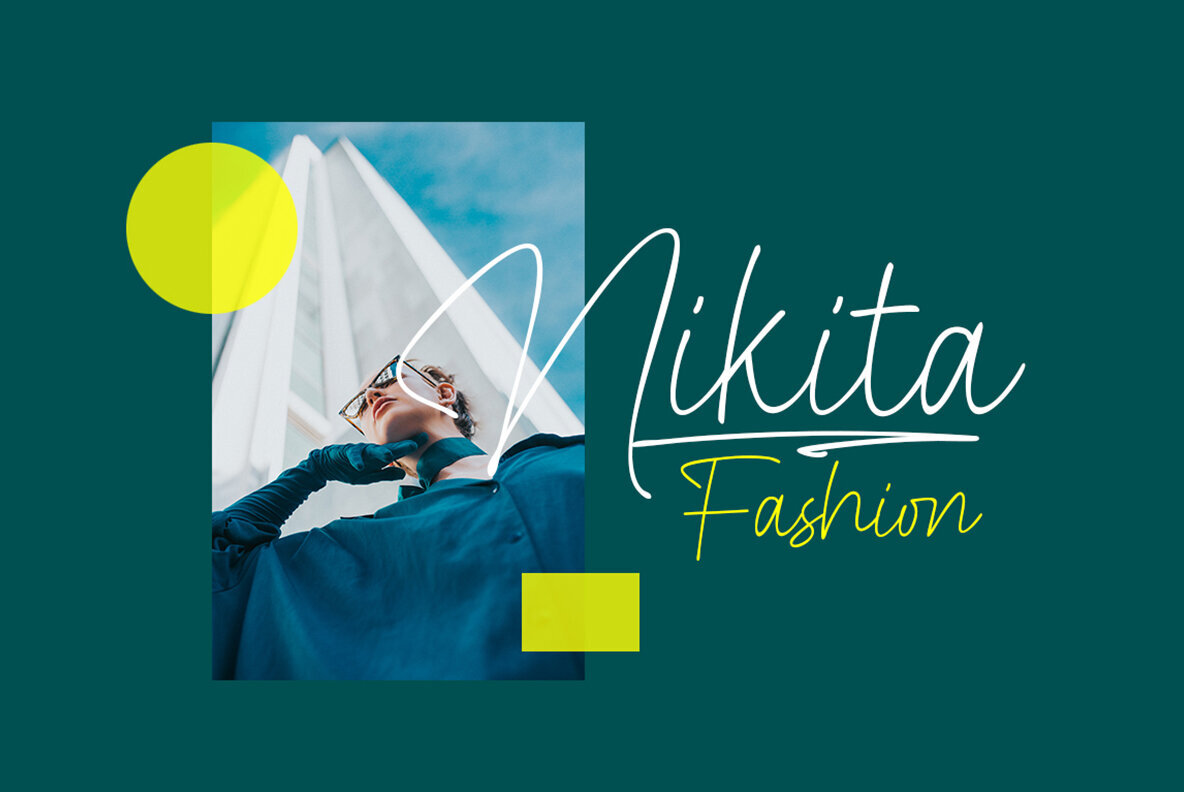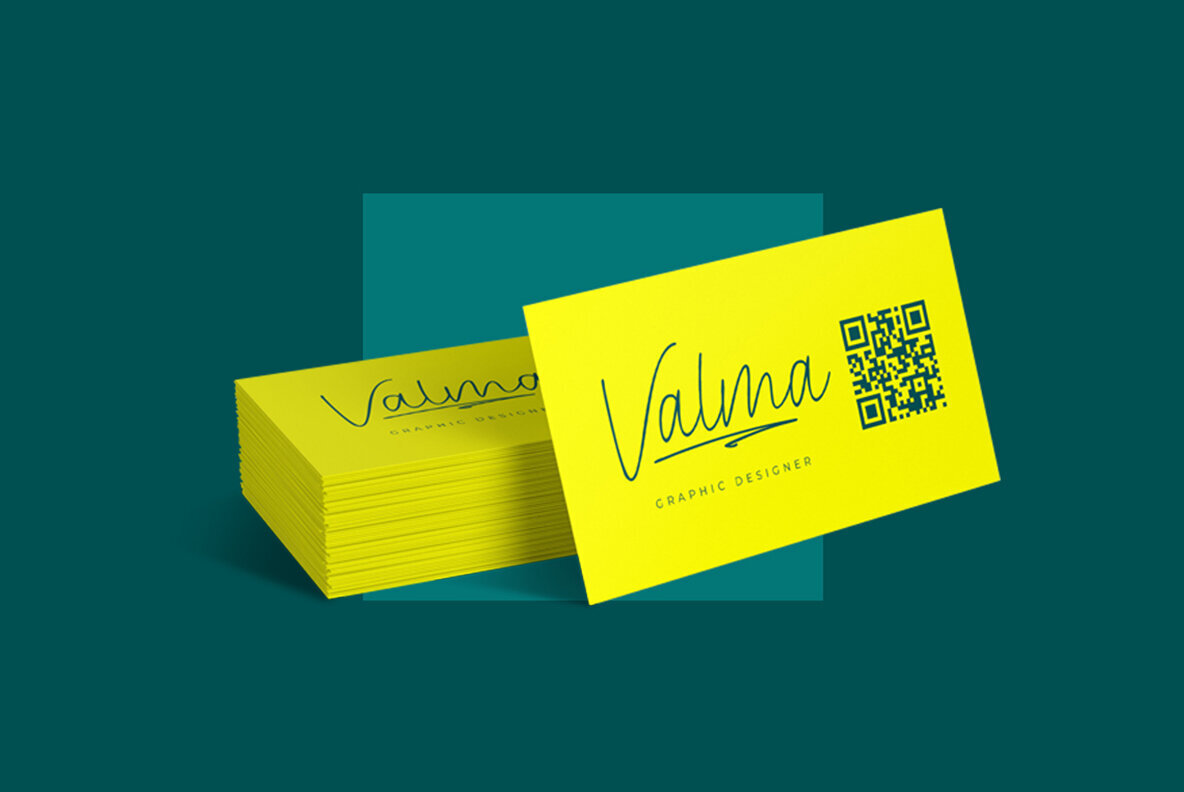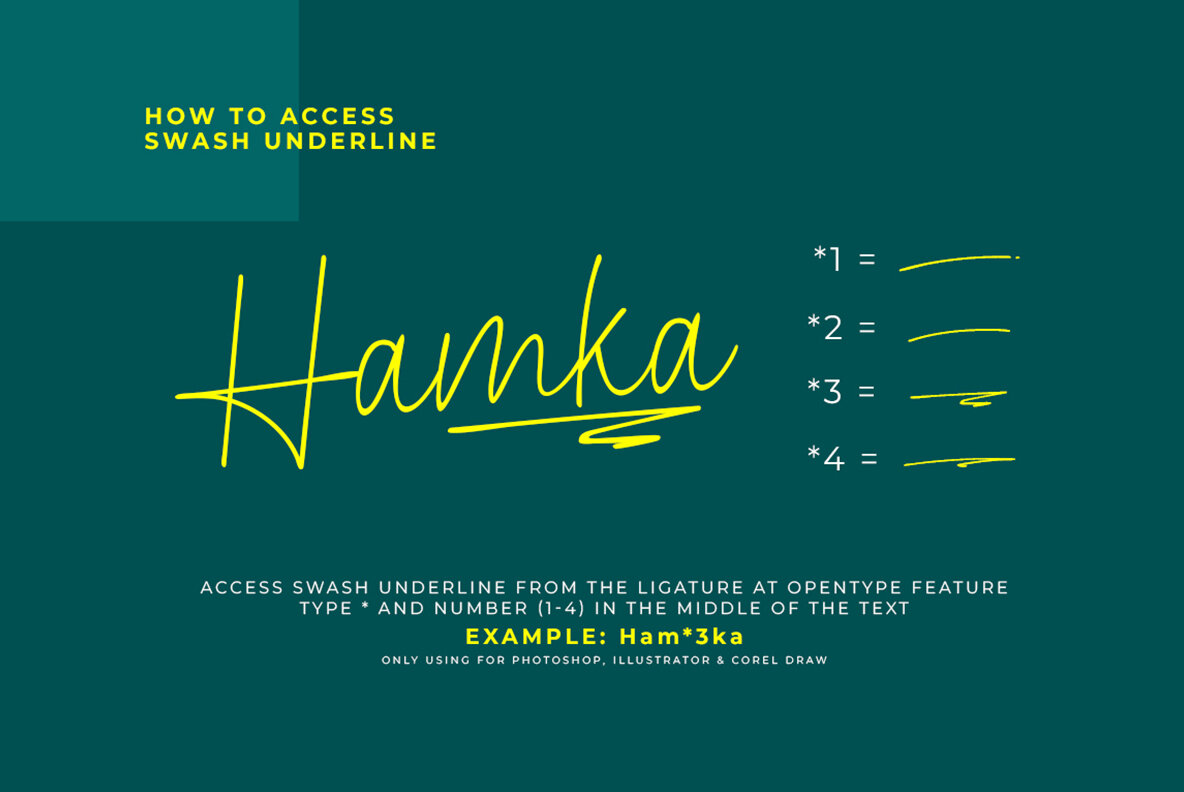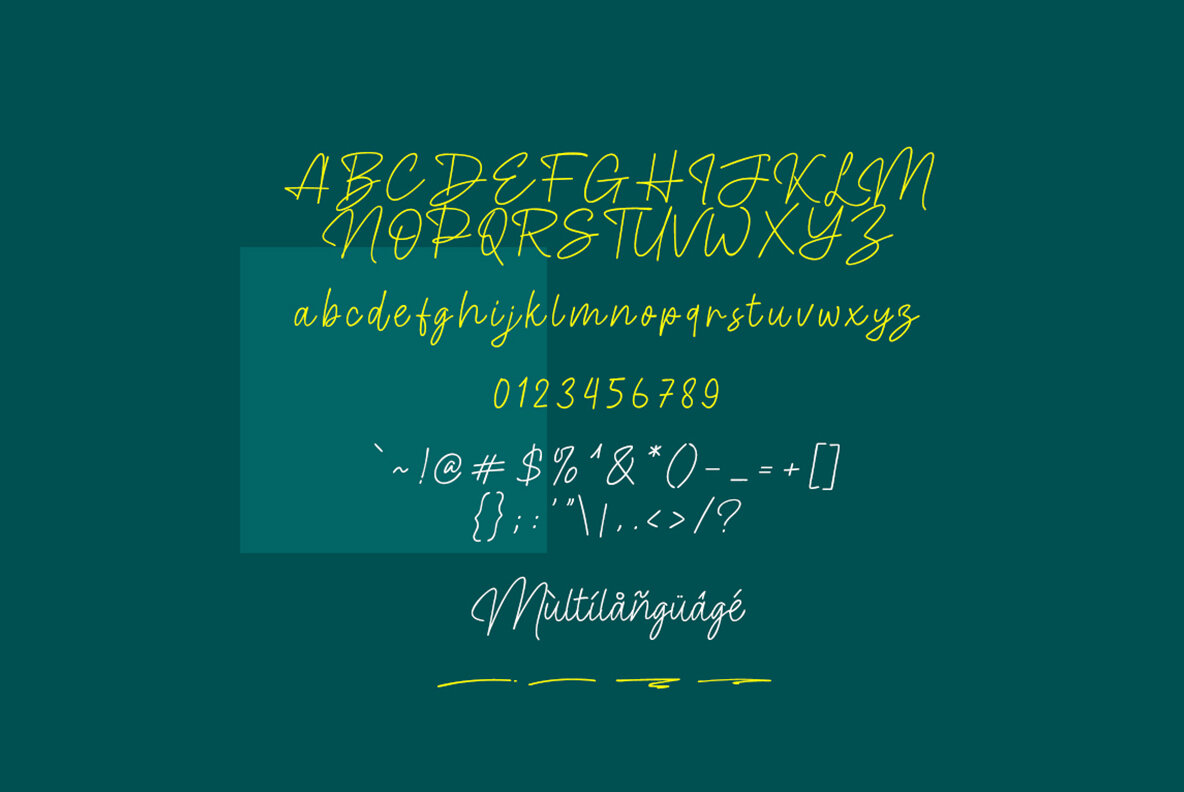
Travel Ballad Font
Travel Ballad
The Travel Ballad is a fresh script font, elegant and modern feel character set. The Travel Ballad font as well as multi-lingual support, uppercase, lowercase, numerals, & punctuation.